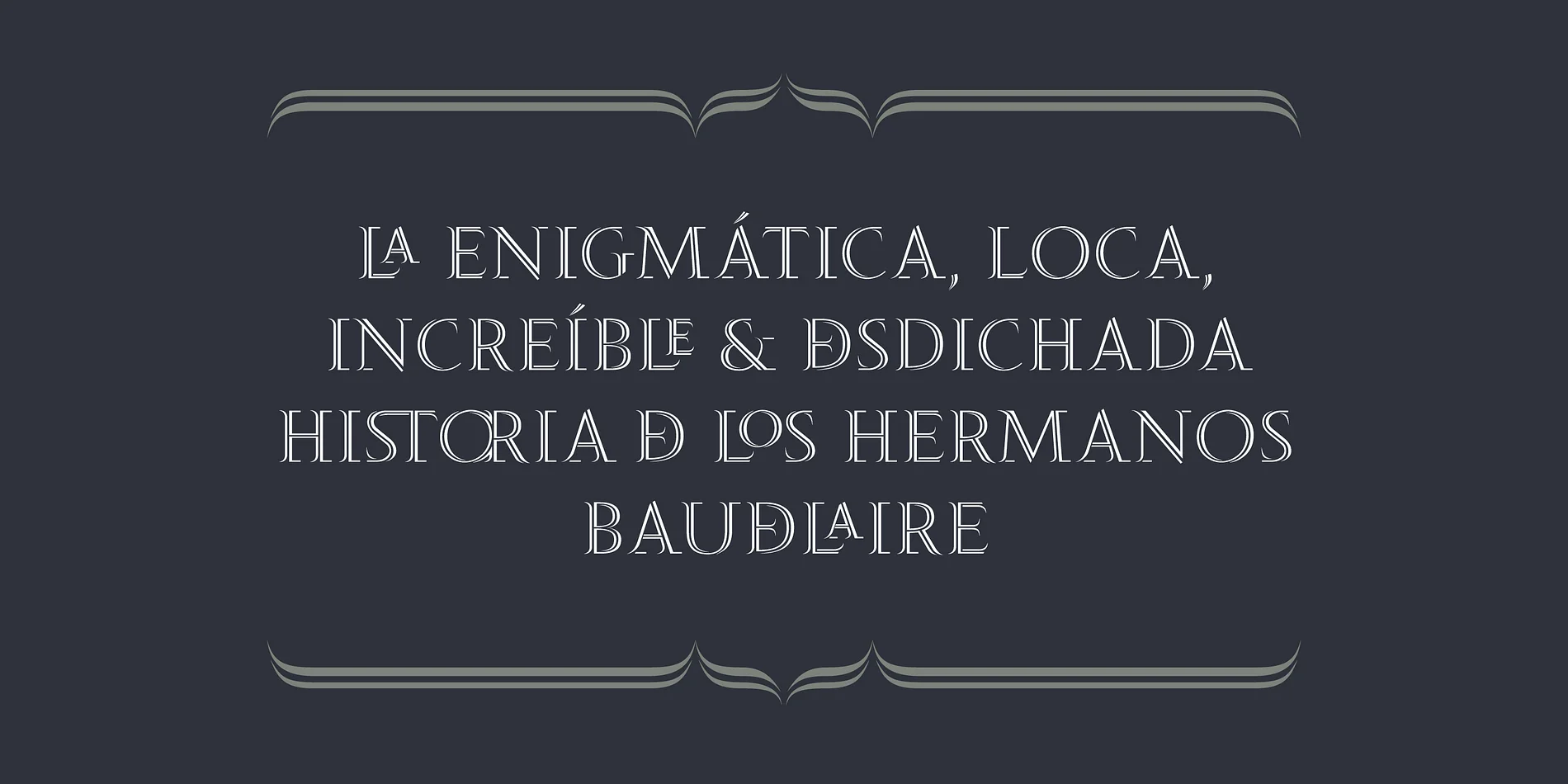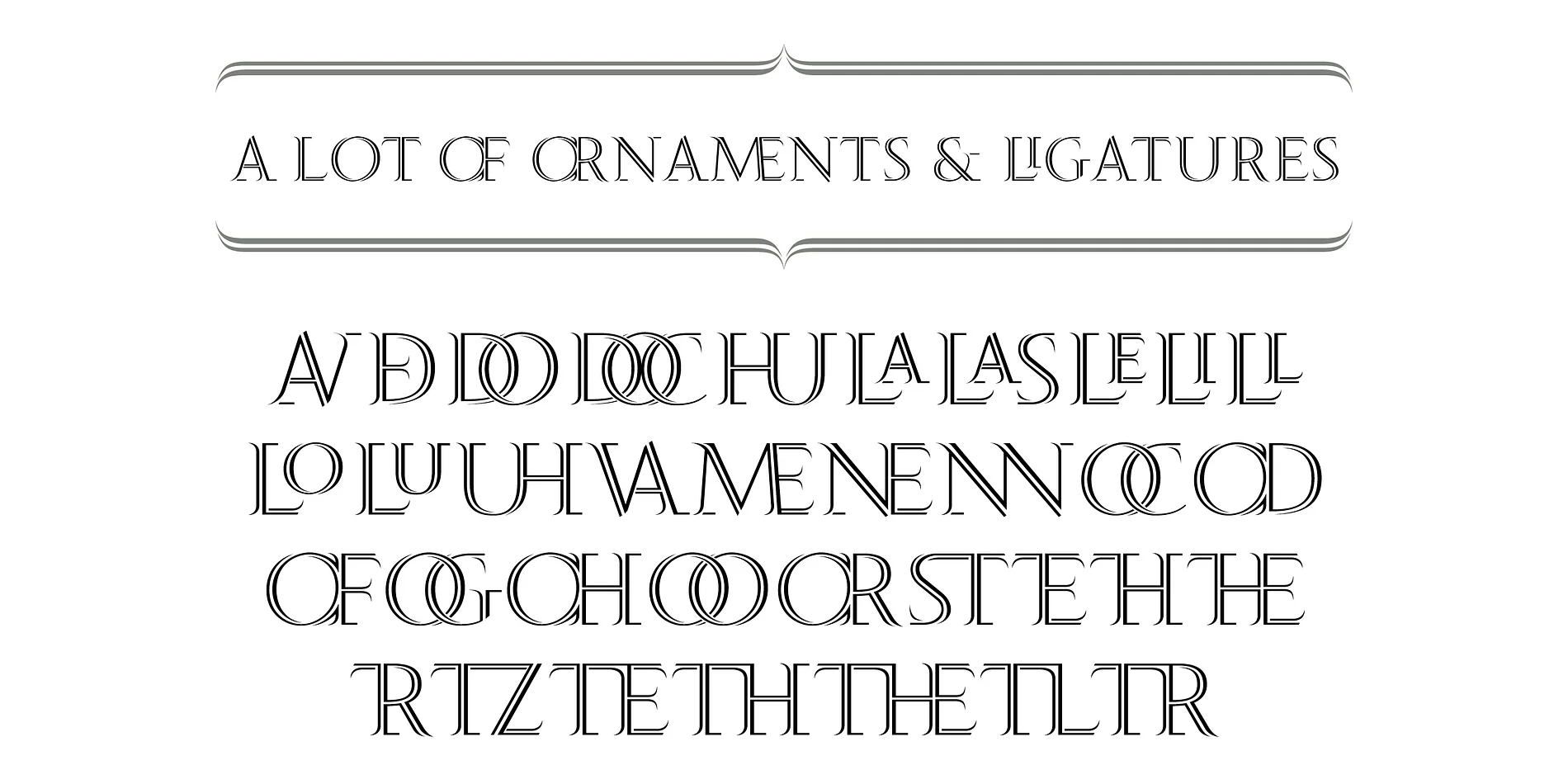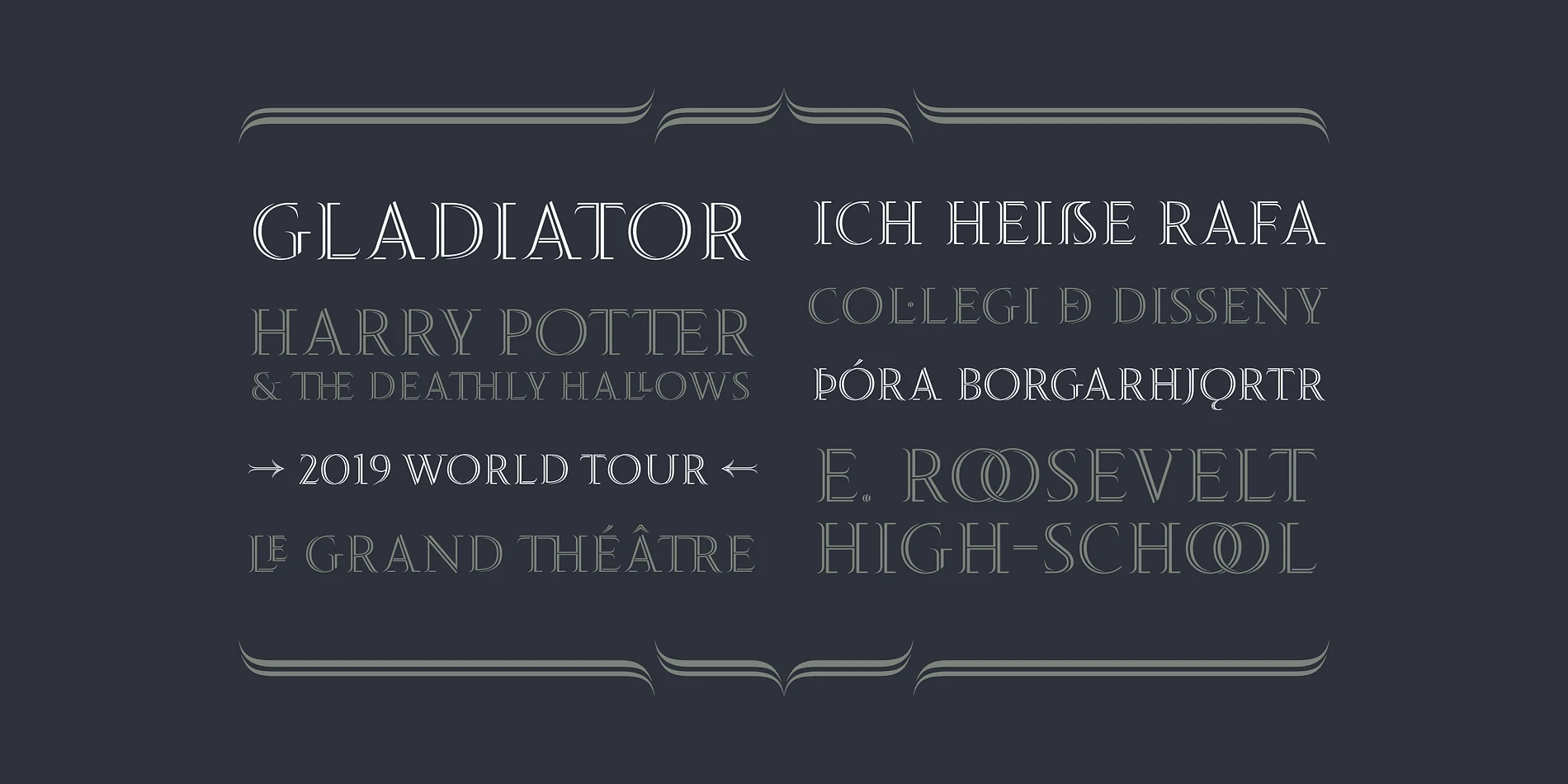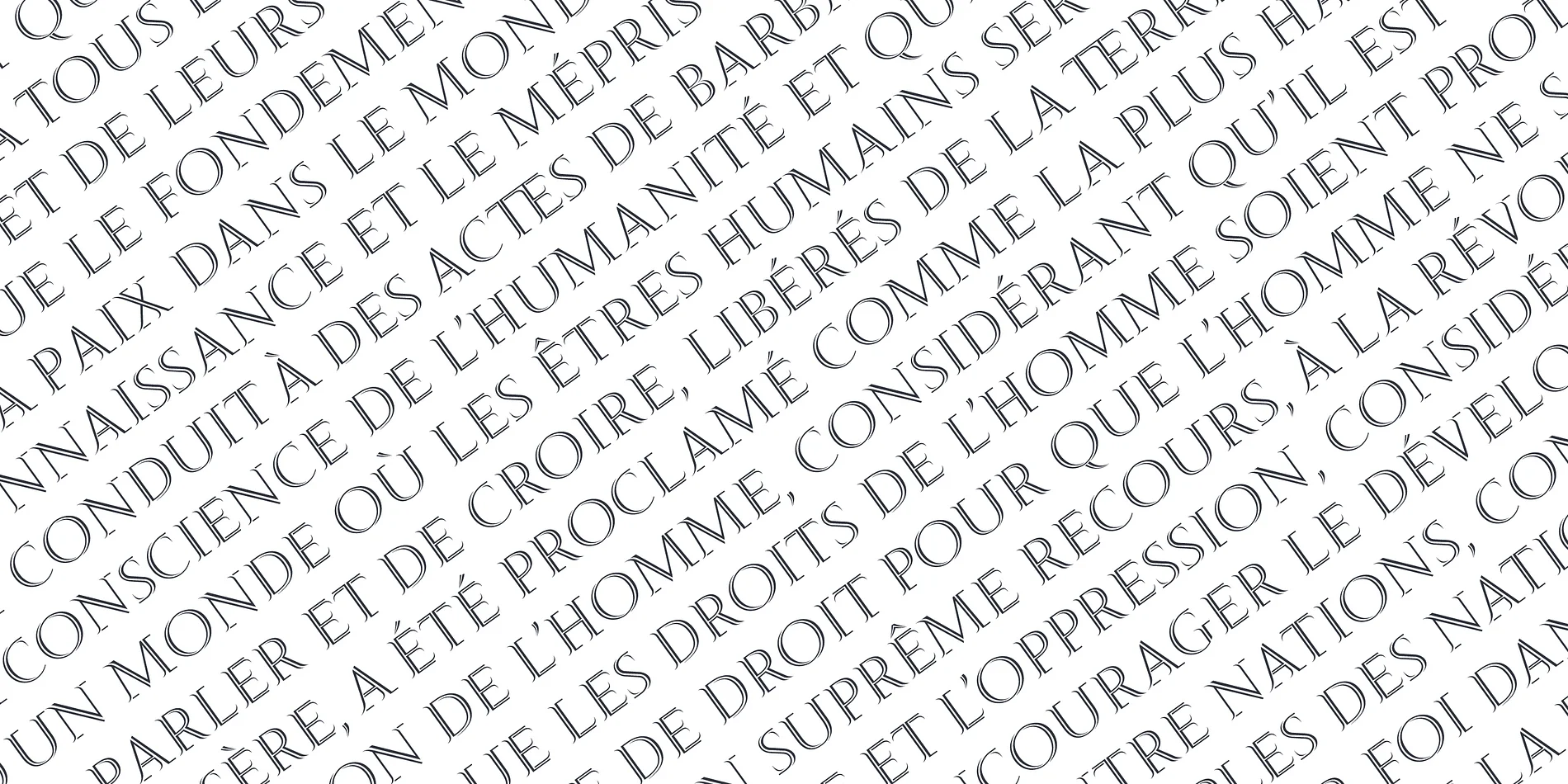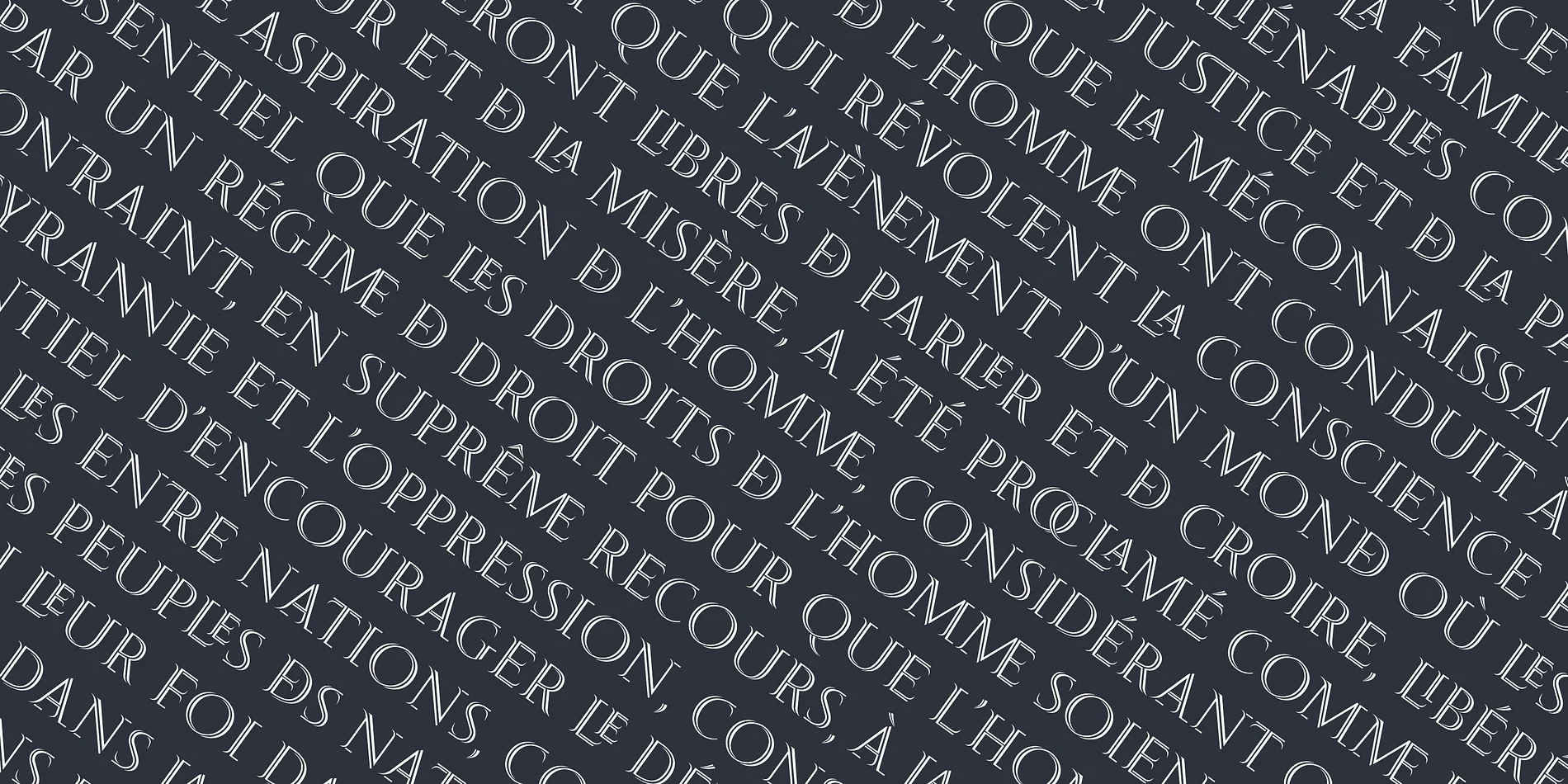
Ostium Font
Typography shapes perception at a subconscious level. Ostium leverages versatility across print and screen contexts to make every composition feel considered. The typeface brings a versatile sensibility to a broad range of creative disciplines, with distinctive character without sacrificing readability that holds up whether the work is print-first or screen-first.
In practice, Ostium proves particularly effective for environmental graphics, signage systems, poster creation, web design, advertising campaigns. Designers reaching for it find that the type decisions feel resolved rather than laboured — a useful quality when client timelines are tight.
The range of applications extends to editorial layouts, annual reports, product labels, packaging design. That breadth is deliberate: the proportions and spacing were stress-tested across a wide range of mock briefs before the typeface was finalised.
The consistent rhythm of Ostium across a full paragraph creates the kind of even grey value that makes extended reading comfortable, a detail that matters more in long-form content than its subtlety might suggest.
Art directors commissioning type-led campaigns find Ostium a reliable choice for projects that demand both personality and restraint. The design avoids the self-conscious quirkiness that dates quickly, settling instead for considered distinctiveness that holds up over time.